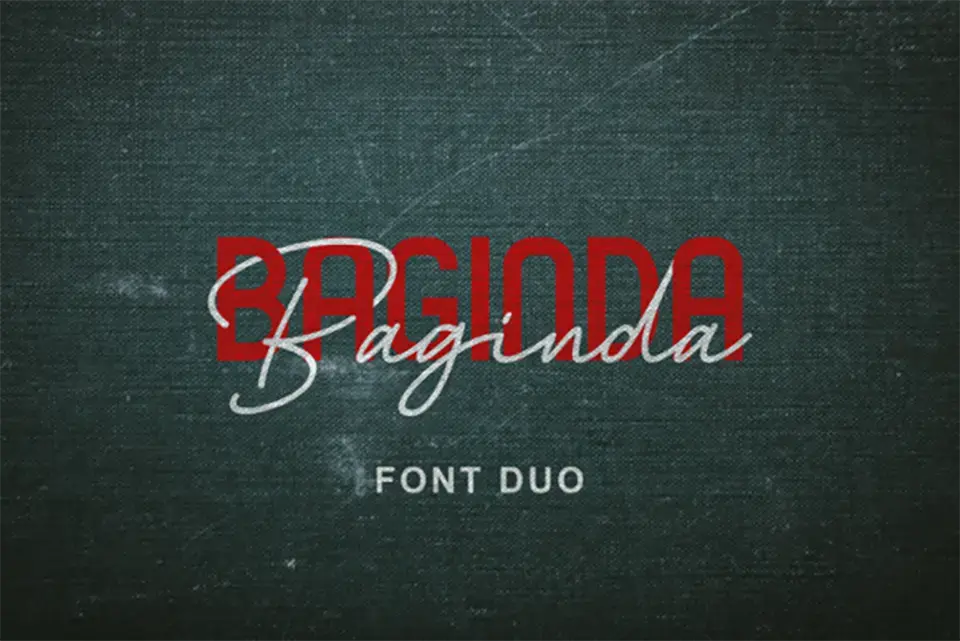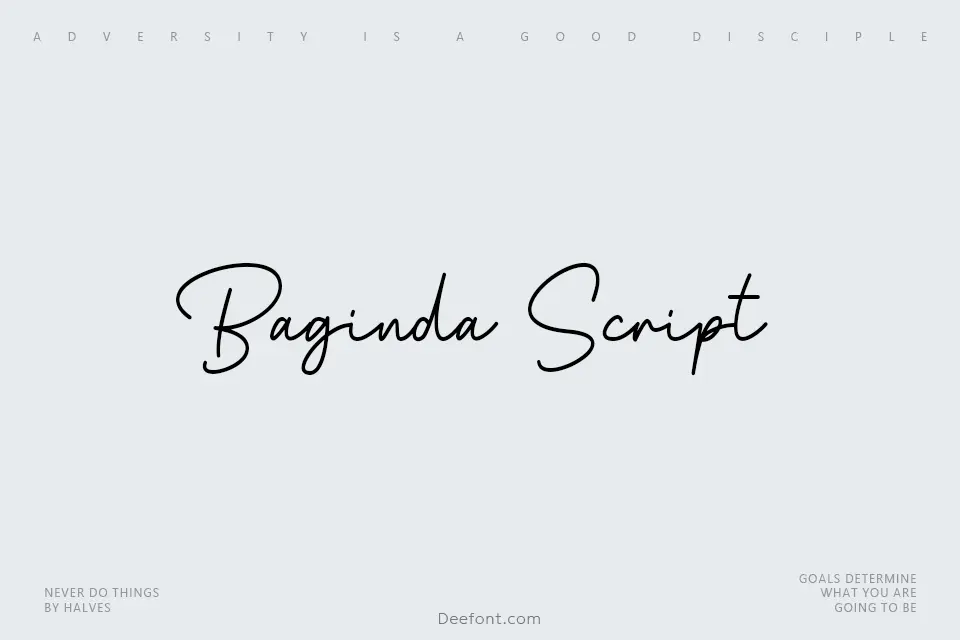
Baginda Script Font
Baginda Script is an exquisitely crafted flowing script typeface that captures the essence of handwritten elegance with smooth, connected letterforms and subtle decorative flourishes. The font features consistent stroke widths and beautifully balanced curves, creating a sophisticated appearance ideal for luxury branding, high-end packaging, wedding invitations, and display headlines. Its natural yet refined aesthetic makes it particularly suited for premium lifestyle brands, beauty and wellness industries, hospitality design, and any project requiring an elegant, personal touch that conveys refinement and creativity.